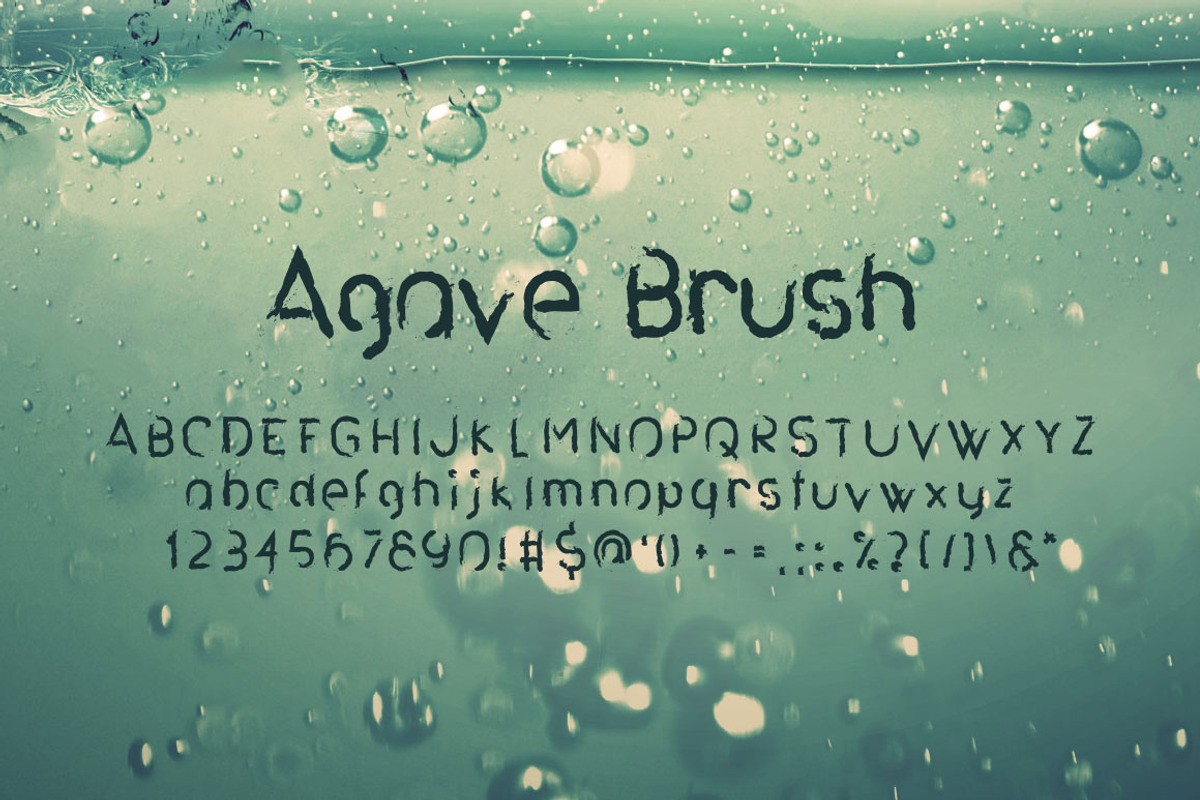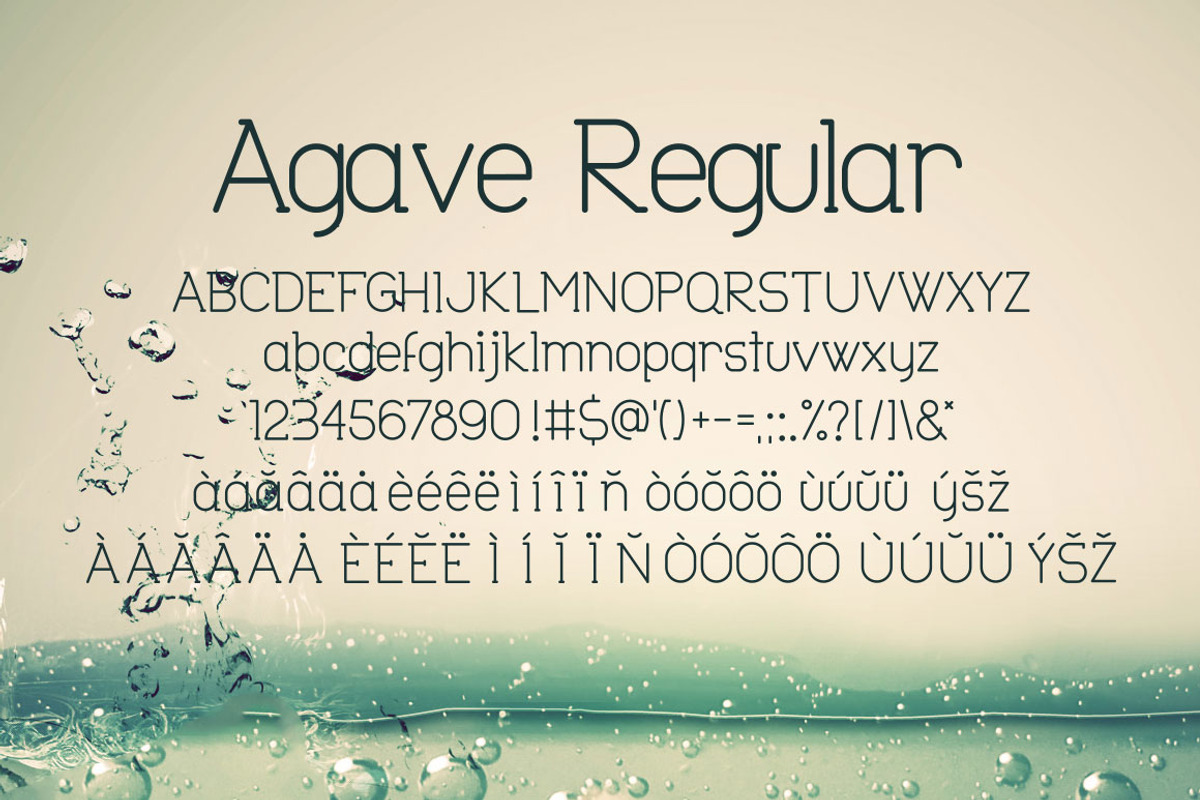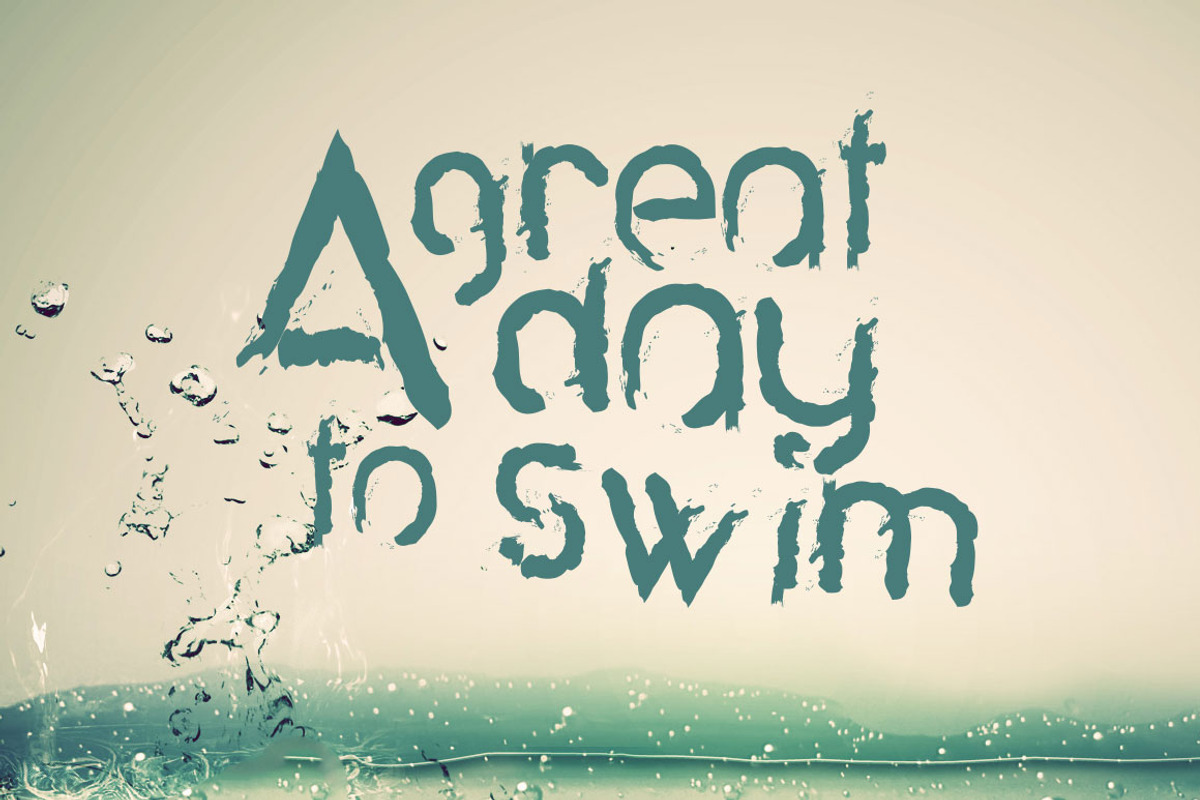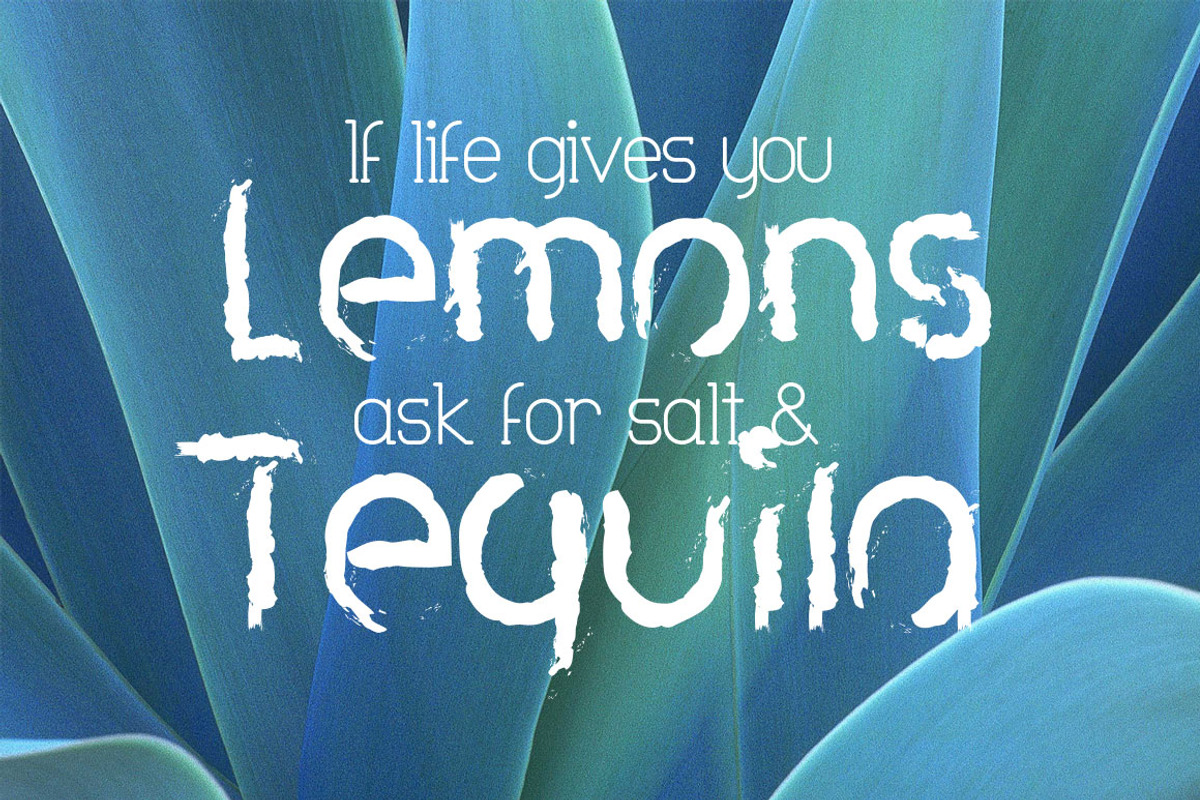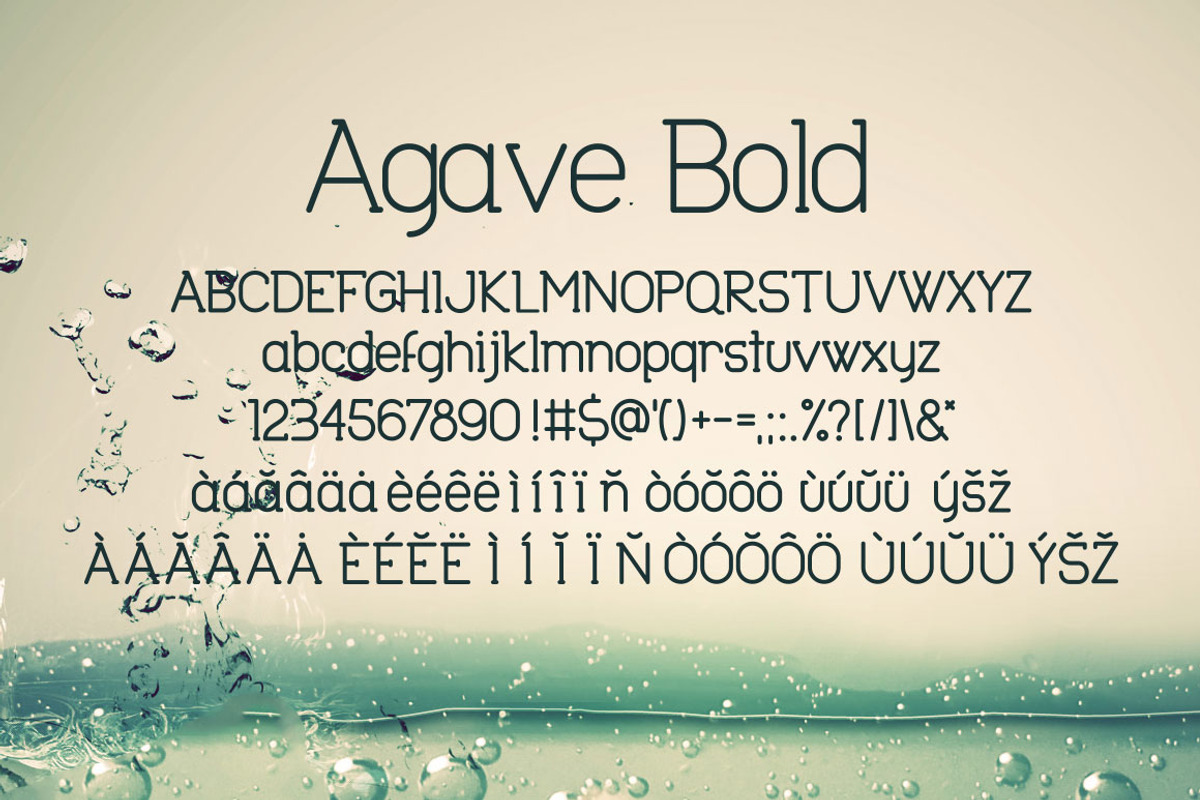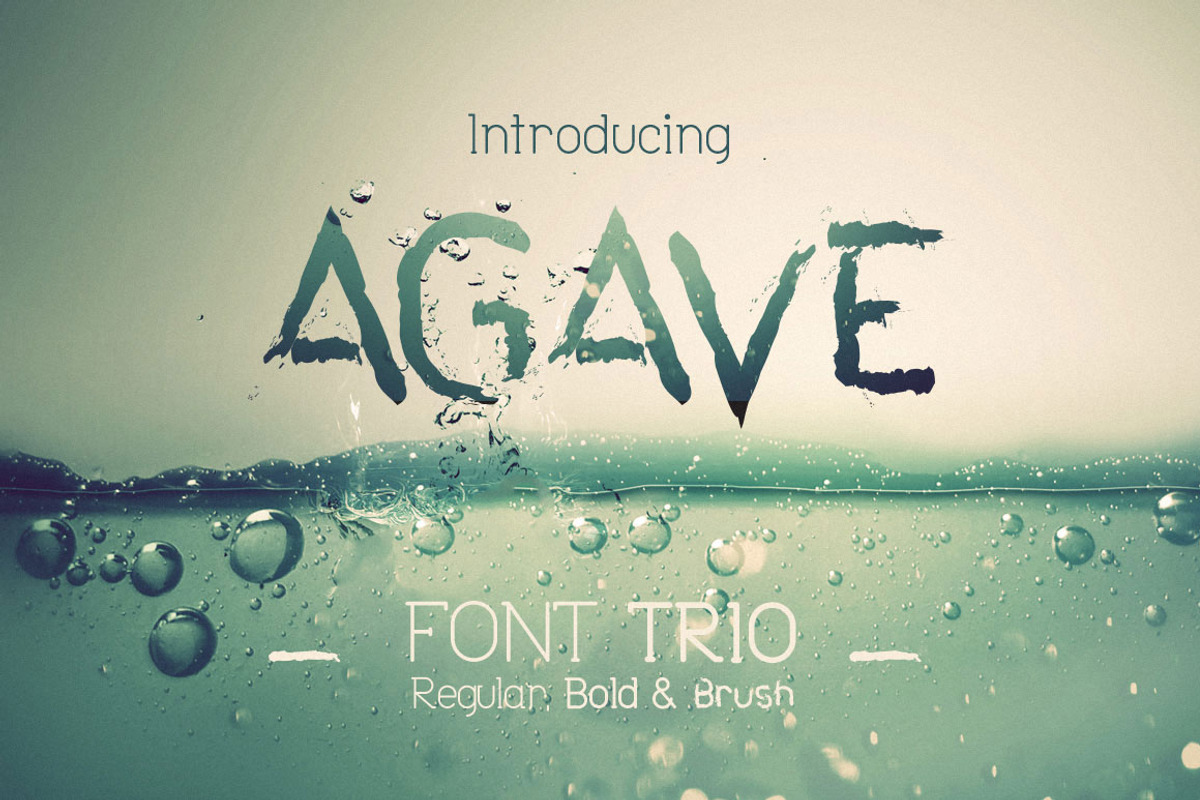
Agave Font Trio
Agave Font Trio by DesignSomething is a font selected for branding, posters, packaging, typography.
- This product contains 3 perfectly paired typeface.
Why Agave Font Trio is worth a look
Agave Font Trio by DesignSomething fits naturally into Branding, posters, packaging, typography.